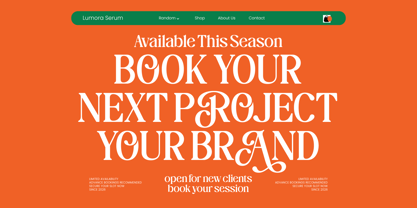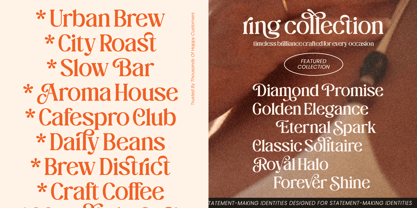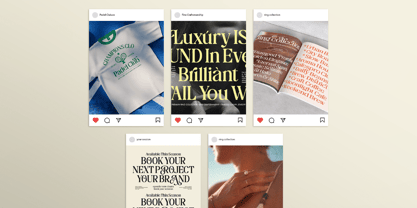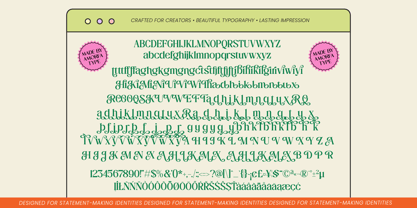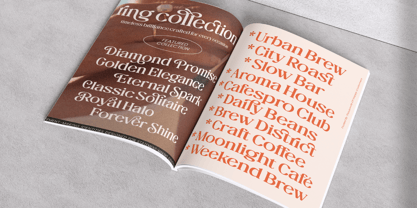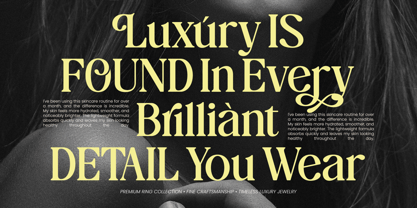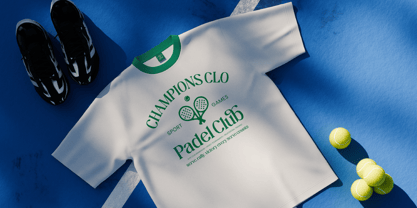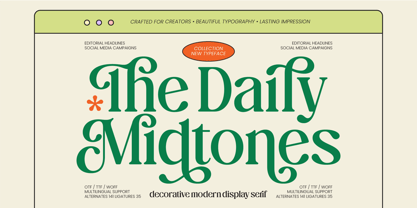
The Daily Midtones
The The Daily Midtones Font Family was designed by Shiddiq Roihan and published by Amorfa Type. The Daily Midtones contains 1 styles. More about this family
The Daily Midtones is a decorative modern display serif typeface crafted with expressive curves, elegant ornamentation, and refined contemporary styling. Designed to capture attention through distinctive letterforms and artistic details, this typeface delivers a luxurious visual presence while maintaining readability and versatility for modern creative projects.
Inspired by editorial typography, boutique branding, vintage elegance, and contemporary visual culture, The Daily Midtones combines decorative sophistication with modern serif construction. Its graceful forms, ornamental character shapes, and striking personality make it ideal for designs that require both beauty and individuality.
Whether used for luxury branding, fashion campaigns, editorial headlines, packaging design, social media content, or premium visual identities, The Daily Midtones helps transform typography into a memorable visual experience